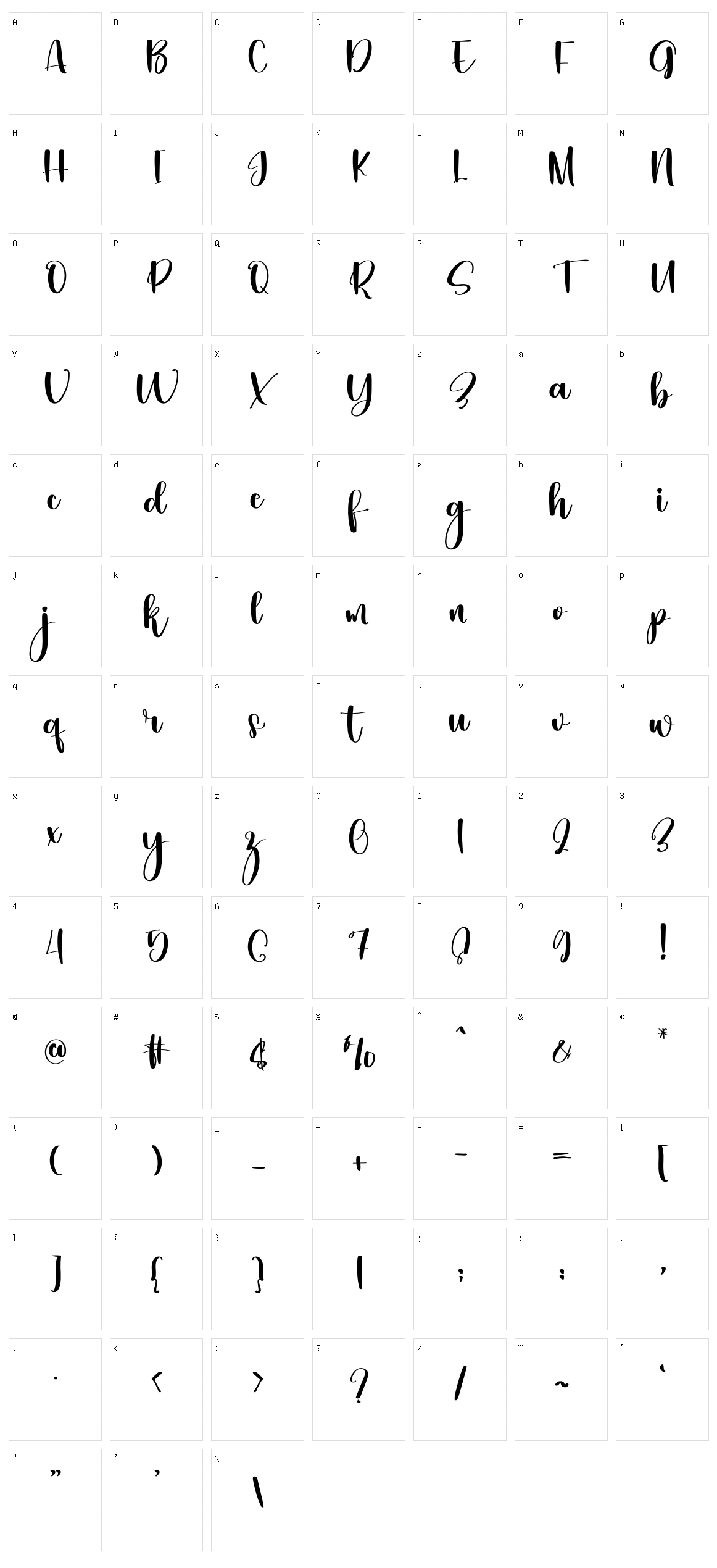
The free font Farm is carefully designed by Inermedia Studio, showcasing a thoughtful balance of creativity and usability and falls under the Script font style. When you download the ZIP file, it contains only 68.24 KB of font files, making it lightweight and quick to download. Please review the license details below to understand permitted usage and distribution rights. If license information is not available, we recommend using this font for personal projects only or contacting the author directly for commercial usage permissions.